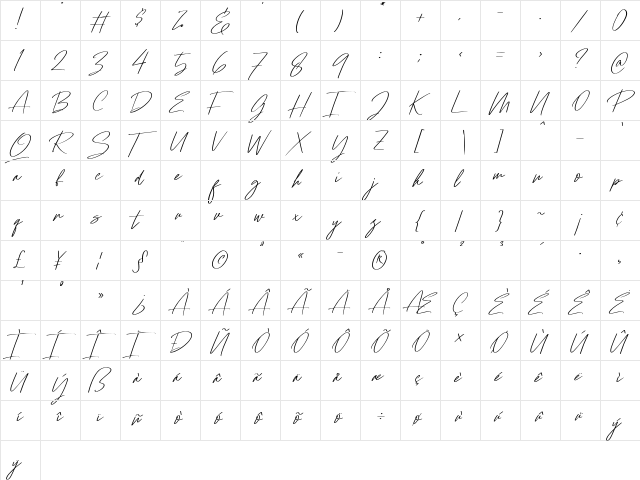
Ramstay Italic
Design Context for Ramstay Typeface
Ramstay is a composed and adaptable typeface that performs quietly and consistently across a wide range of design contexts. The slanted form adds forward momentum and visual energy.